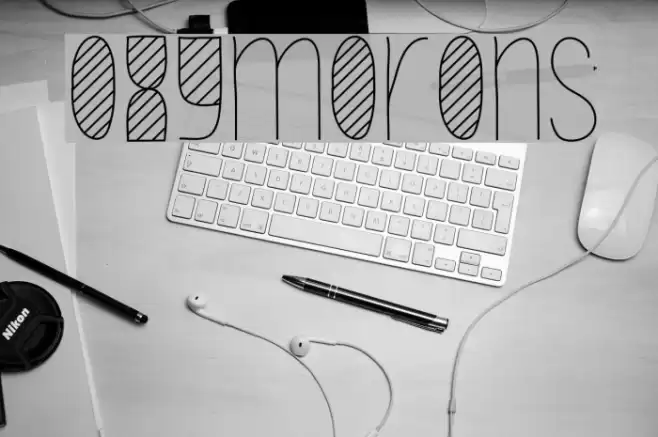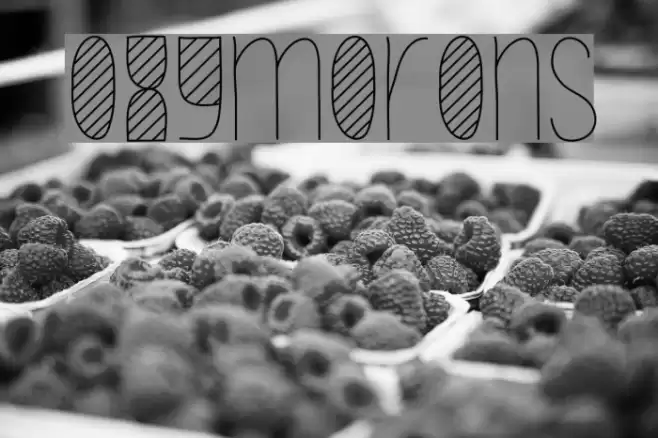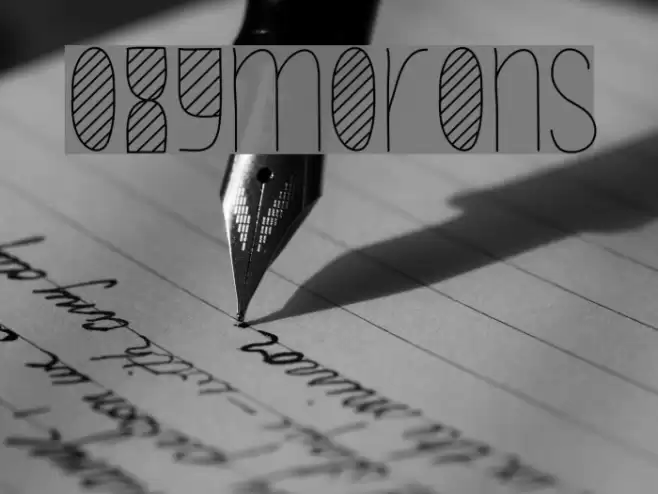
Oxymorons Font
Oxymorons Description
This font features a playful and whimsical design, characterized by its thin, hand-drawn lines and unique striped pattern within certain letters. The uppercase letters are tall and narrow, with some letters like 'M' and 'W' filled with diagonal stripes, adding a decorative touch. The lowercase letters maintain a similar style, with a mix of open and closed forms, and some also feature the striped pattern. The numerals are consistent with the overall style, offering a quirky yet legible appearance. Special characters are included, maintaining the same thin line quality and playful aesthetic. This font is ideal for creative projects that require a lighthearted and artistic feel.
A playful, hand-drawn font with thin lines and decorative striped patterns from Uncategorized fonts.
- Proposed Projects: Ideal for children's books, greeting cards, creative posters, and playful branding.